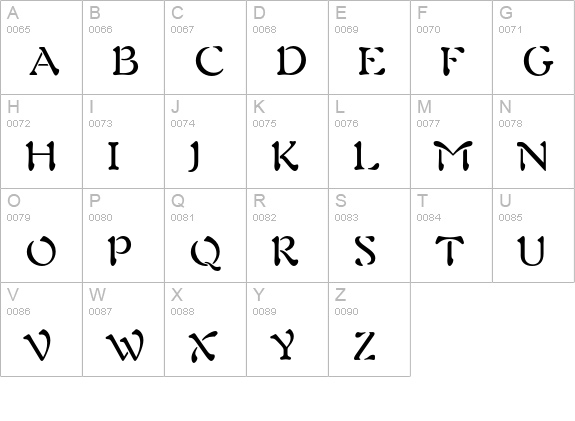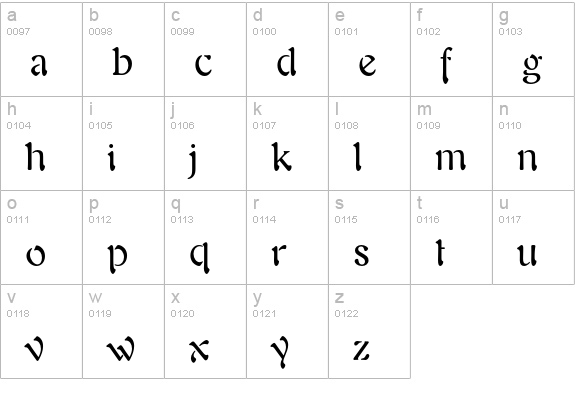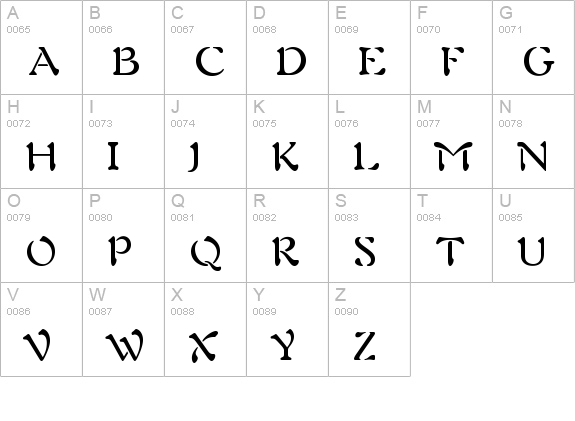
Freeform 721 Font Details
Introducing Freeform 721 font - a versatile typeface that combines elegance with modern appeal. This beautifully designed font features smooth curves and clean lines, making it perfect for a wide range of design projects. Whether you're creating a logo, branding materials, or website design, Freeform 721 font will add a touch of sophistication to your work. The best part? This stunning font is available for free download at FontsMarket.com. With just a few clicks, you can access this stylish typeface and elevate your design projects to new heights. Don't miss out on the opportunity to enhance your creations with the timeless beauty of Freeform 721 font. Download it today and let your creativity flow freely!